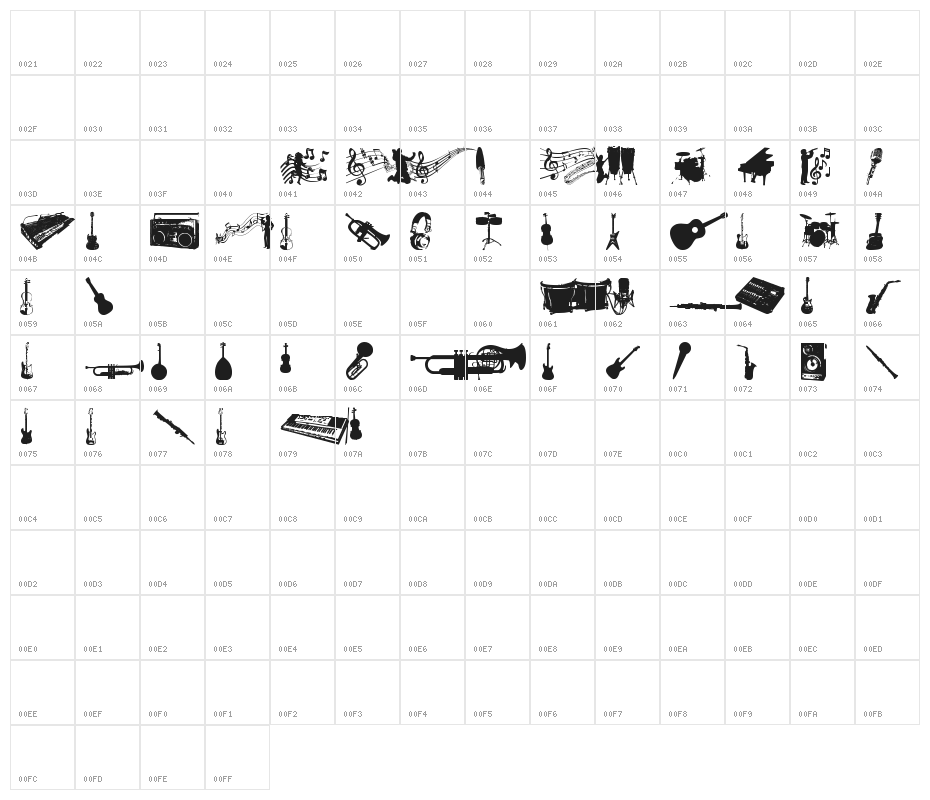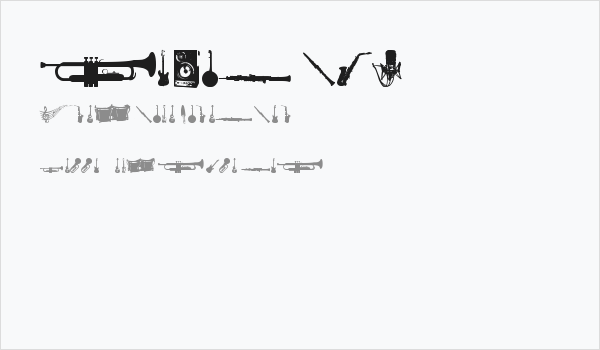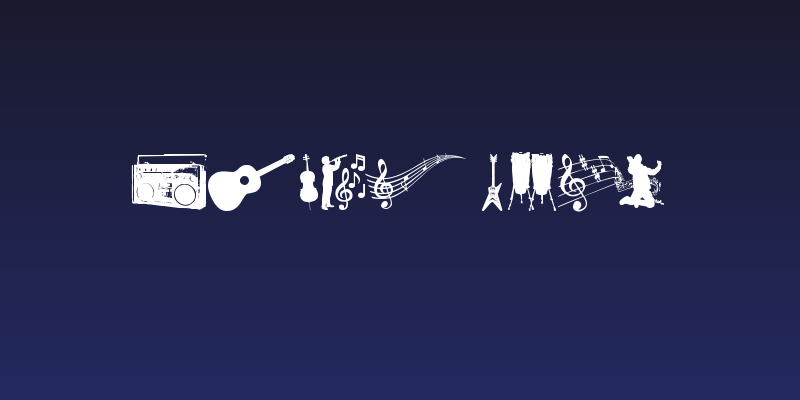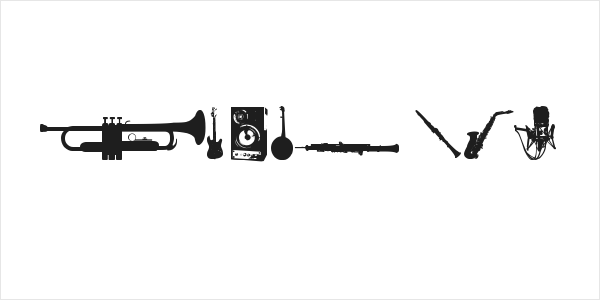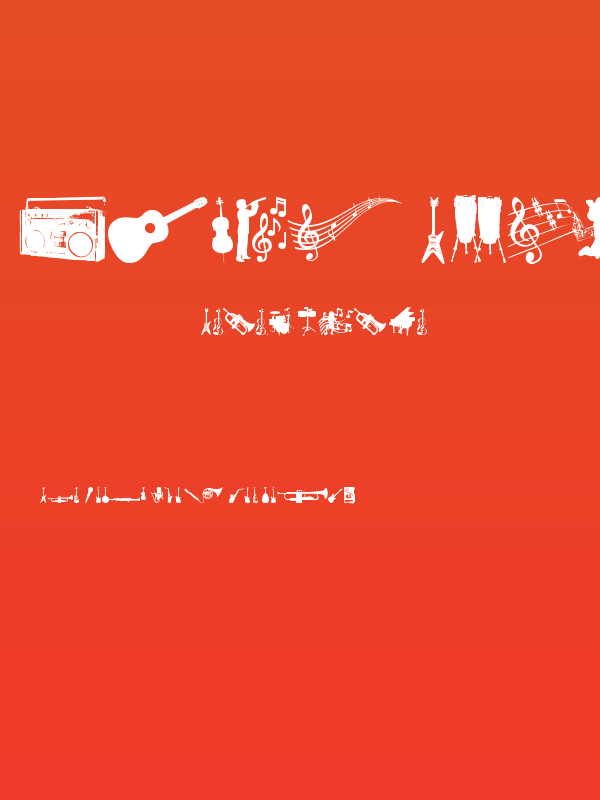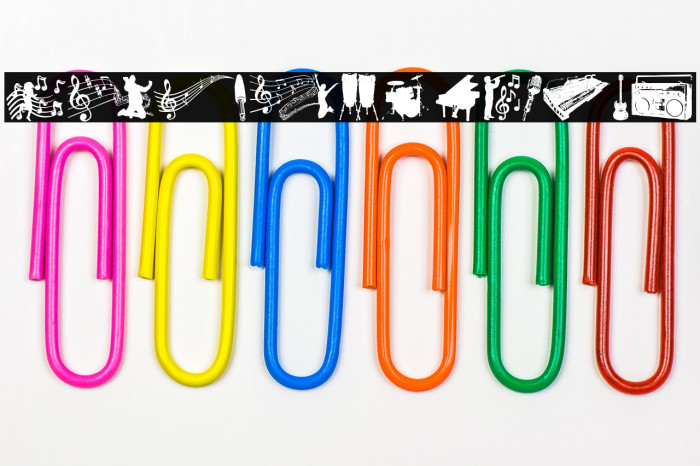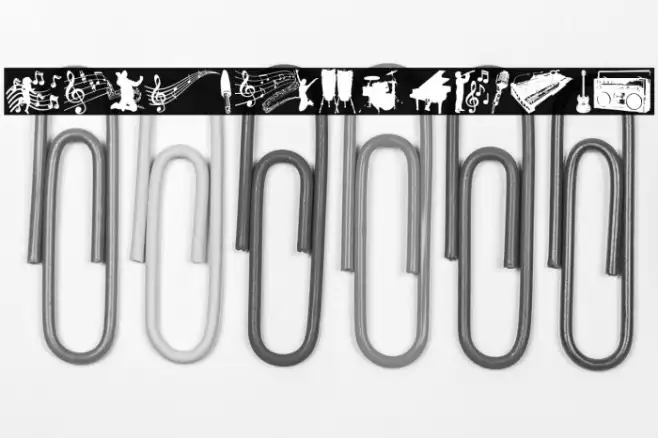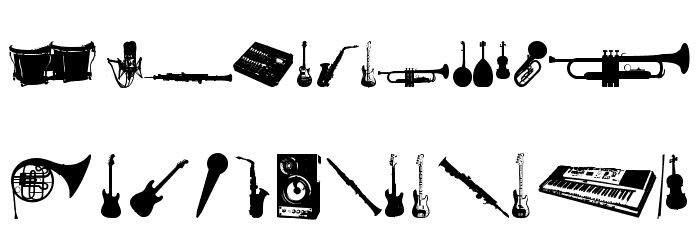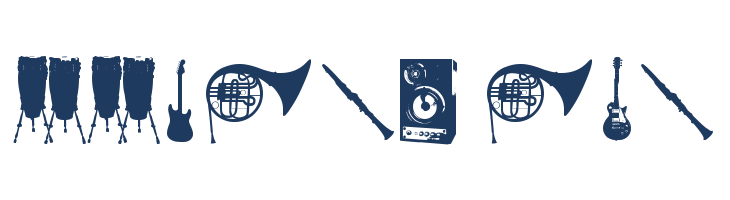
music tfb Font
This collection features a variety of music-themed icons, each representing different musical instruments and elements. The icons are detailed and stylized, capturing the essence of each instrument with a playful and artistic flair. The set includes a range of instruments from strings, percussion, and wind, to electronic equipment, making it versatile for various music-related projects. The icons are bold and distinct, ensuring they stand out in any design. The style is decorative and illustrative, perfect for adding a musical touch to creative projects.
| Use Case | Logos, Posters, Educational Materials |
| Proposed Projects | Ideal for music event posters, educational materials, music apps, and creative branding projects. |